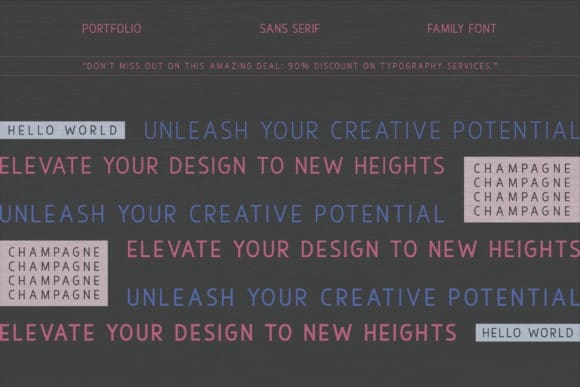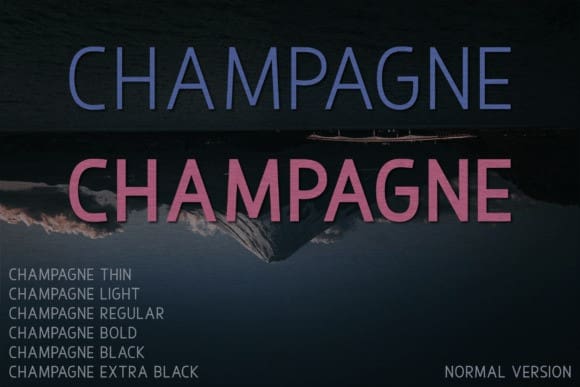
Champagne Font Family
Champagne Font Family. Exuding elegance and pared-down simplicity, this collection is a paragon of minimalistic luxury. Our five unique weights subtly blend modern style with enduring charm. With its expertly crafted design, the Champagne sans serif is a flawless choice for a broad range of projects – from avant-garde logos to contemporary film posters, enhancing everything in its path. Experience the harmonious fusion of grace and straightforwardness, empowering your designs with ageless elegance. Unleash the full potential of our Champagne font family now.